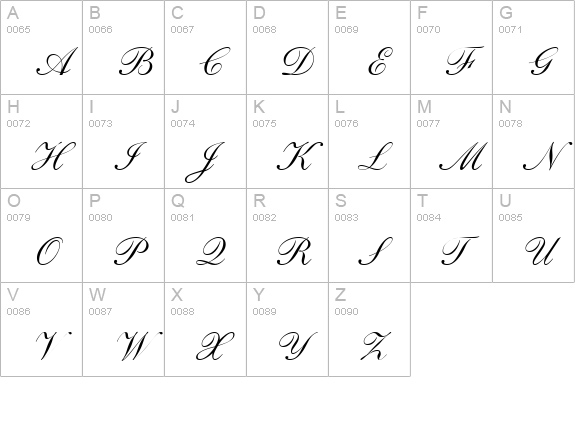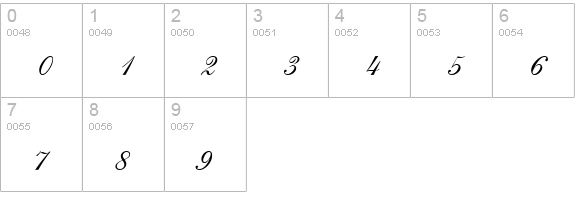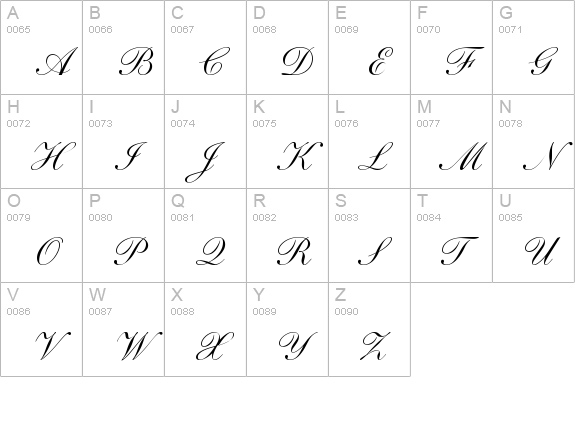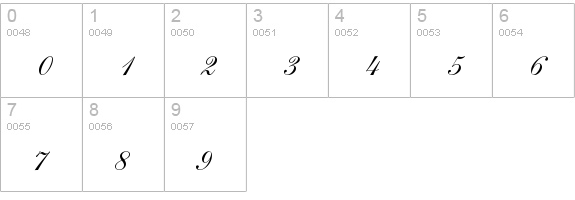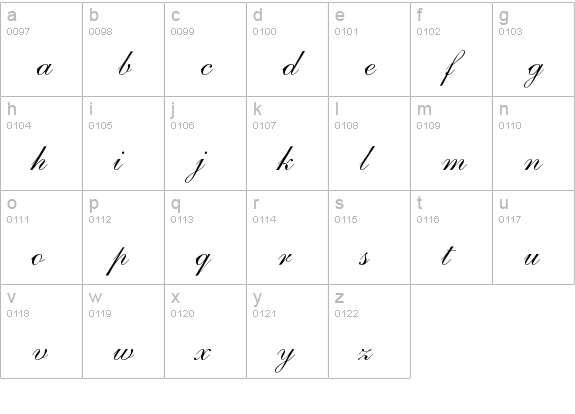
Pen Tweaks Two SSi Font Details
Pen Tweaks Two SSi is a captivating and versatile font that effortlessly combines elegance with a touch of playfulness. Its smooth and fluid strokes give your designs a unique and stylish look, making it perfect for a wide range of projects. Whether you're designing invitations, logos, posters, or any other creative endeavor, Pen Tweaks Two SSi will add a touch of sophistication and charm to your work. Its beautiful curves and intricate details make it a true standout, allowing you to create eye-catching designs that leave a lasting impression. One of the best features of Pen Tweaks Two SSi is that it is freely available to download at FontsMarket.com. This means that you can easily access and use this incredible font without any constraints. It's a fantastic opportunity to enhance your design projects without having to worry about any extra costs. With its vast character set and OpenType features, Pen Tweaks Two SSi offers endless possibilities for customization. You can easily mix and match different letterforms to create your own unique styles, giving your designs a personalized touch that sets them apart from the rest. The versatility of Pen Tweaks Two SSi is truly remarkable. It works seamlessly across different mediums, from print to digital, ensuring that your designs always look stunning and professional, no matter the platform. Its legibility and readability make it suitable for various purposes, making it a reliable choice for both headlines and body text. Don't miss out on the opportunity to elevate your design projects with Pen Tweaks Two SSi font. Download it for free at FontsMarket.com and let your creativity soar to new heights.